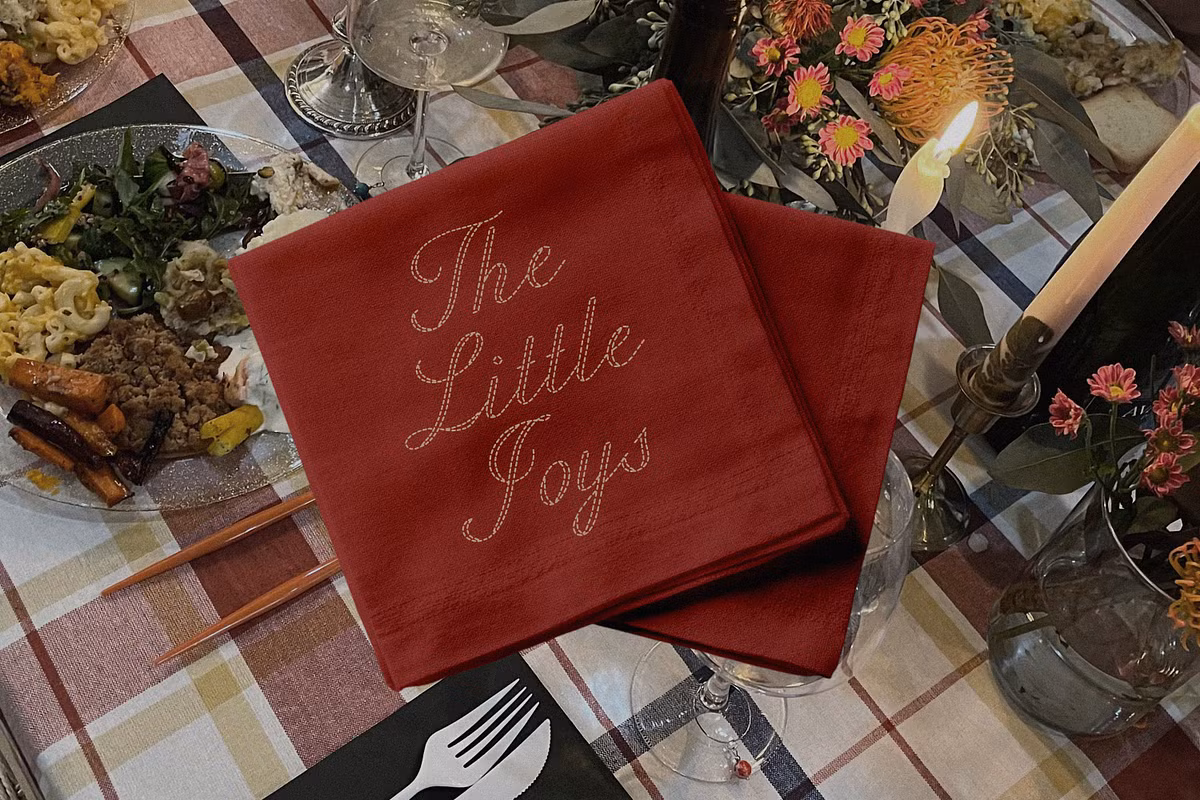
Refined Stitch Vintage Script Font: Elegant Typeface for Wedding & Branding
Here is the Refined Stitch. I think the Refined Stitch feels like a hand sewn sign. The Refined Stitch is a vintage style font that looks like hand made letters. The Refined Stitch has a look that comes from cottage style and small stitch marks. The Refined Stitch works for projects. You can use the Refined Stitch for wedding invitations for branding for media posts. The Refined Stitch gives an workshop feel that makes your designs stand out.
Design Style of Refined Stitch
The Refined Stitch font has curves and stitch inspired accents. The Refined Stitch font feels like a vintage script and The Refined Stitch font brings a feeling. The Refined Stitch font works well for projects that need a bit of class and warmth. The hand crafted texture makes each letter feel personal. The hand crafted texture creates a look that connects with people who want nice design.
The design of Refined Stitch draws from the look of the past. The design of Refined Stitch feels fresh and modern. The design of Refined Stitch lets Refined Stitch blend into design projects. Flowing lines and playful flourishes of Refined Stitch create movement and grace. I see Refined Stitch as a choice for uses.
Character Sets and Features
Refined Stitch has a set of characters. The set includes upper case letters, lower case letters, numbers, punctuation marks and a few ligatures. Refined Stitch gives designers the tools they need to make clear text layouts.
The ligatures in Refined Stitch make the font look smoother. The ligatures let certain letters join without a gap. The ligatures give a look to the text. I notice that the ligatures help me build monograms, custom logos and detailed designs. The features in Refined Stitch work well when I need a lot of detail. The features let me create designs easily.
Besides the style Refined Stitch is built for reading. I have used Refined Stitch and I see that Refined Stitch stays clear when the size is small. That makes Refined Stitch a choice for printed work and for screens.
Use Cases for Refined Stitch
I have found Refined Stitch flexible so Refined Stitch works well for projects. These are the use cases for Refined Stitch:
- Wedding Stationery and Invitations: The style of Refined Stitch feels soft and sweet. Refined Stitch adds a bit of class that fits the occasion. Wedding Stationery and Invitations look right for the day.
- Monograms and Personalized Logos: I think monograms and personalized logos use design elements. The unique design elements let monograms and personalized logos reflect style or brand identity. I like how monograms and personalized logos can be created with those elements.
- Packaging and Product Labels: I use Refined Stitch on product packaging. Refined Stitch makes the look better. Refined Stitch also tells the customer that the product is made with quality and care.
- Social Media Stories: I have seen the look of Refined Stitch improve Social Media Posts and Stories. Refined Stitch makes Social Media Posts and Stories more interesting and easier to remember.
- Prints: I have used the font on my posters and prints. The font adds a look to art prints and promotional posters. The font grabs attention and makes the message clear.
- Craft and Handmade Projects: Refined Stitch works well for the DIY projects that have the cottagecore vibe. Refined Stitch brings the handcrafted feel to the endeavor.
Pairing Suggestions for Refined Stitch
Consider pairing Refined Stitch with other fonts that complement its vintage and elegant style for a cohesive design.